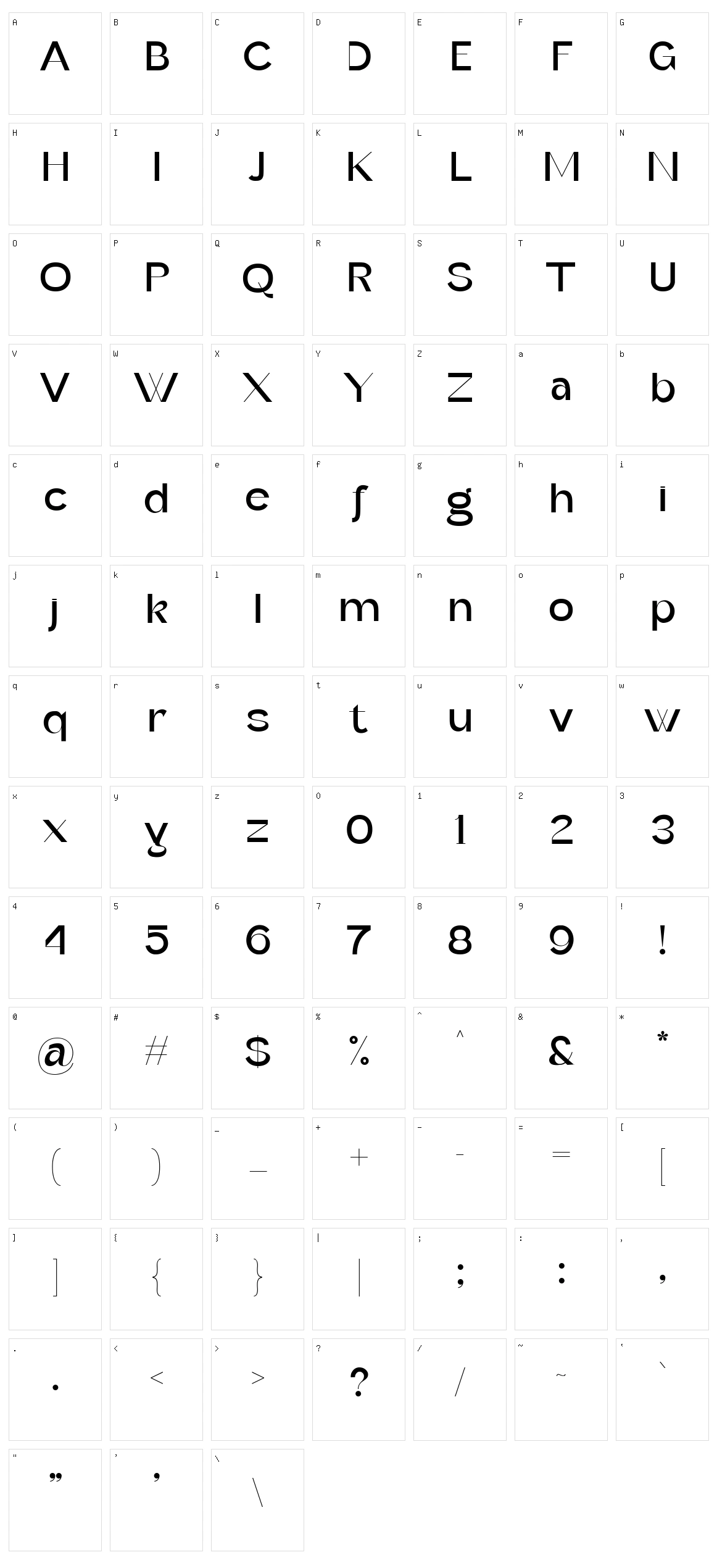
The free font Geffroge Authentic is carefully designed by Ronny Studio, showcasing a thoughtful balance of creativity and usability and falls under the Sans serif font style. When you download the ZIP file, it contains only 2495.94 KB of font files, making it lightweight and quick to download. Please review the license details below to understand permitted usage and distribution rights. If license information is not available, we recommend using this font for personal projects only or contacting the author directly for commercial usage permissions.